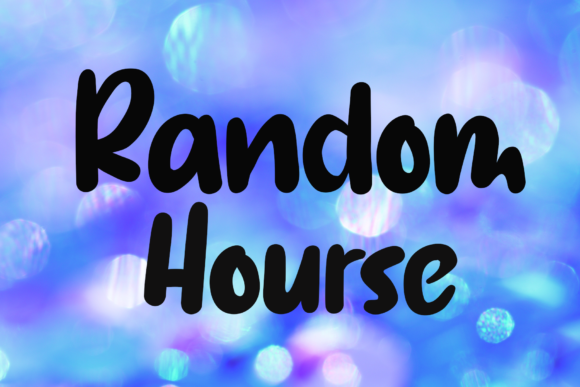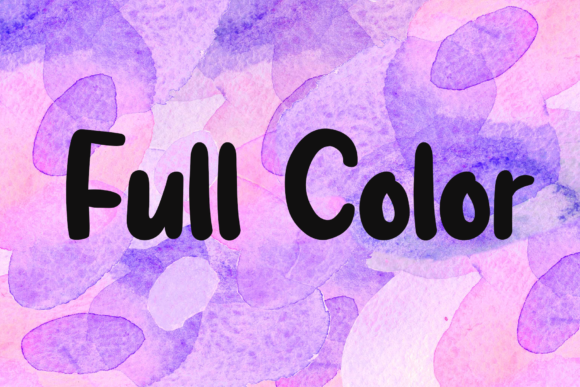
Unicorn Font
db-ku.com - Script & Handwritten -- Unicorn is a thick lettered and simple font. It feels cute and versatile. This font looks stunning on shirts or t-shirts, thank you cards, quotes, greeting cards, logos, business cards, children’s books, displays and any other design that requires a handwritten touch.